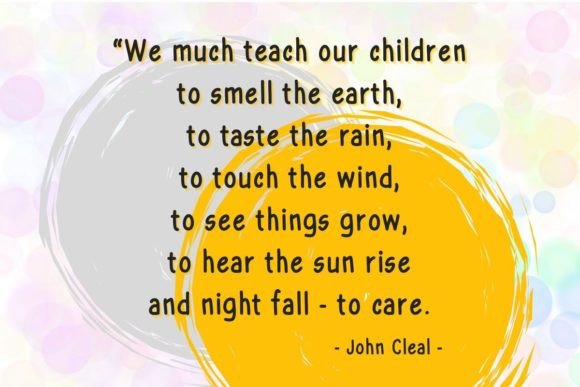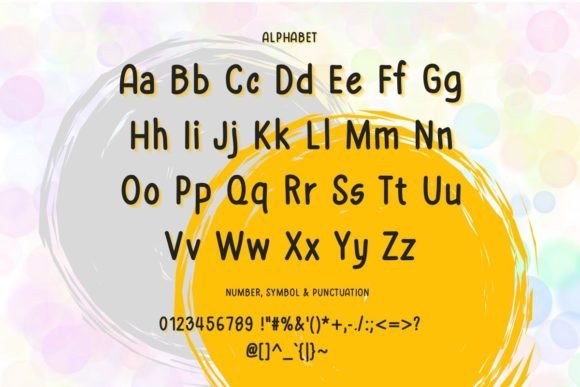
Unleash Your Creative Potential with Chaba Font
In the digital age, typography plays a crucial role in bringing your creative visions to life. Among the myriad of fonts available, there’s one that stands out for its unique blend of classic charm and modern sophistication: Chaba Font. Originating from the actual strokes of a pen, Chaba Font offers a refreshing alternative to standard digital typefaces, infusing projects with a personal touch that’s hard to replicate with more conventional fonts.
The Charm of Handcrafted Typography
Chaba Font is more than just a typeface; it’s an expression of artistry and craftsmanship. Each letterform has been carefully crafted to reflect the natural flow and imperfections of handwriting, bringing a level of authenticity and warmth to your designs. This handcrafted approach ensures that every character, from the bold strokes to the subtle curves, carries a sense of personality and uniqueness.
Key Features of Chaba Font
• Strong and Friendly: Chaba Font strikes the perfect balance between being robust and approachable. Its clean lines and clear readability make it suitable for a wide range of applications, from headlines to body text.
• Classic Handwriting Charm: The font’s roots in traditional penmanship are evident in its classic appeal. It brings a timeless quality to designs, making it ideal for projects that require a touch of elegance and sophistication.
• Contemporary Sophistication: Despite its classic roots, Chaba Font doesn’t feel out of place in modern contexts. Its versatility ensures it can be used in both digital and print media, from websites and social media graphics to posters and invitations.
• Clean and Bold Lines: The bold, clean lines of Chaba Font ensure high readability, even at smaller sizes. This makes it an excellent choice for body text, as well as for headlines and titles where making a statement is key.
• Easy to Use: Designed with the user in mind, Chaba Font is easy to integrate into various design projects. Whether you’re a professional designer or a DIY enthusiast, you’ll find Chaba Font straightforward to use and adaptable to your creative needs.
Applications of Chaba Font
The versatility of Chaba Font makes it suitable for a myriad of design projects. Here are a few ideas to get you started:
• Branding and Logos: Use Chaba Font to create a memorable brand identity that stands out from the crowd. Its unique blend of classic and modern elements can help convey your brand’s personality.
• Web Design: Enhance your website’s typography with Chaba Font. Its readability and aesthetic appeal make it perfect for headings, paragraphs, and even call-to-action buttons.
• Social Media Graphics: Create engaging social media content with Chaba Font. Whether it’s an Instagram post, a Facebook banner, or a Twitter header, this font can help your message stand out.
• Print Materials: From business cards and brochures to posters and flyers, Chaba Font can elevate your print materials with its classic yet contemporary look.
Chaba Font is a beautifully crafted typeface that brings the best of both worlds to your design projects. Its origins in actual pen strokes give it a unique charm that digital fonts often lack, while its clean, bold lines and clarity ensure it remains highly readable and versatile. Whether you’re a designer looking for a distinctive font to add personality to your work or a crafter seeking to bring a personal touch to your creations, Chaba Font is an excellent choice. Embrace the tangible beauty of handwriting in the digital age and unleash your creative potential with Chaba Font.
With Chaba Font at your disposal, you’re just a few steps away from adding a unique and professional touch to your creative projects. Celebrate the beauty of handwriting in the digital age and let Chaba Font be the voice of your brand or personal creations.